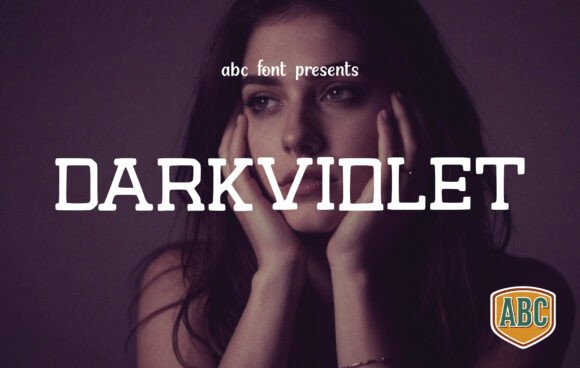
Darkviolet: A Bold Type for Editorial Moments
There’s a certain kind of magic in the moment you choose a font for a project. It’s not just about aesthetics—it’s about mood, identity, and how the words will sit on the page. For a recent lifestyle blog redesign, I found myself drawn to Darkviolet, a heavy-duty slab serif font that carries the weight of classic collegiate style with a modern, moody twist. It felt right for a publication that wanted to feel both grounded and a little edgy.
Darkviolet is more than just a typeface; it’s a statement. Its thick, blocky stems and prominent horizons give it a strong visual presence. The rhythm of the letters feels deliberate, almost like a quiet rebellion against the sleek minimalism of many contemporary fonts. It has a personality that leans into boldness without being overbearing, making it ideal for editorial projects where impact matters.
Darkviolet in Real Publishing Scenarios
Using Darkviolet in a blog header was one of the first tests. The font’s heavy weight made the title stand out without overwhelming the rest of the design. It worked well as a pull quote in an article about vintage fashion, adding a layer of visual interest that complemented the narrative. In a recipe ebook, it gave the chapter titles a sense of authority, while still maintaining a warm, approachable feel.
For a printable planner, Darkviolet served as a strong anchor for section headers. Its structure helped guide the reader through different categories without needing additional design elements. In a coaching workbook, it added a touch of confidence to key phrases, reinforcing the message without distracting from the content.
Readability and Visual Hierarchy
While Darkviolet is undeniably striking, its strength lies in how it supports visual hierarchy. It excels as a display font—perfect for titles, headings, and decorative accents. However, it’s not designed for long-form reading. The dense strokes and pronounced serifs can make it harder to read in body text, especially at smaller sizes or on screens.
That doesn’t mean it’s unusable in all contexts. When paired with a complementary font, such as a clean sans serif for body copy or a readable serif for captions, it can create a balanced and professional look. The contrast between the bold, slab-serif style of Darkviolet and a lighter, more legible typeface helps maintain clarity while keeping the design engaging.
Editorial Identity and Mood
One of the most compelling aspects of Darkviolet is how it contributes to a publication’s identity. Its moody, classic aesthetic makes it a great fit for lifestyle blogs, wedding guides, or digital magazines that want to evoke a sense of nostalgia or sophistication. It adds depth to a layout, helping to define the tone of the content without overpowering it.
For a recent editorial feature page, I used Darkviolet as the headline font, paired with a soft, serif-based body type. The result was a design that felt cohesive yet dynamic. The font’s character added a sense of authenticity, making the content feel more intentional and curated.
When to Use Darkviolet
Darkviolet shines in situations where visual impact is key. It’s ideal for cover text, magazine headlines, and bold headlines in newsletters. As a decorative accent, it can add a unique flair to social media graphics or packaging design. But it’s not the best choice for body text, small captions, or dense paragraphs where readability is critical.
For a wedding guide, I used it sparingly in section headers and pull quotes, allowing it to enhance the design without competing with the content. In a digital magazine, it worked well as a logo design element, giving the publication a distinctive and memorable look.
Overall, Darkviolet is a premium font that brings a sense of character and confidence to any editorial project. Whether you’re designing a lifestyle blog, a recipe ebook, or a creative course PDF, it offers a powerful way to express your brand’s voice. Just remember to use it wisely, pairing it with fonts that support its strengths while compensating for its limitations.